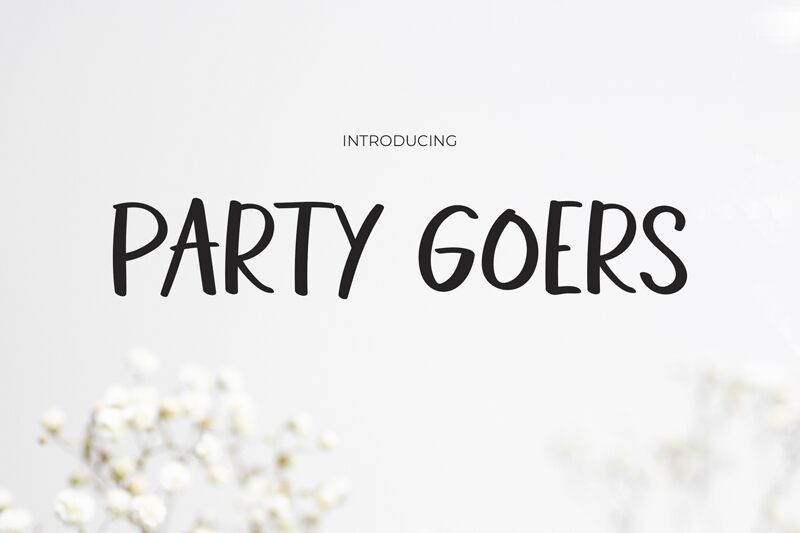
Party Goers font is a free handwritten font by Pinisiart that playfully blends a graffiti-inspired energy with a modern flair. Designed to be casual, fun, and expressive, its lively personality shines throughout, making it a great choice for contemporary projects in need of a youthful touch. With its bold handwriting style, Party Goers is perfect for injecting an authentic vibe into your creative works.